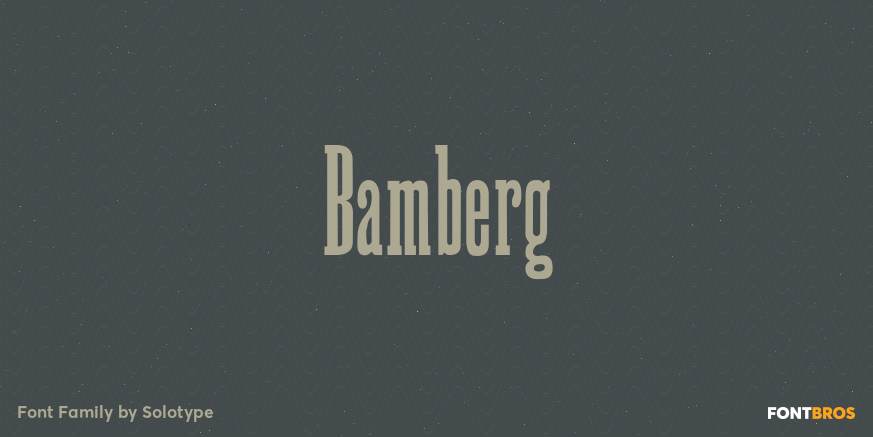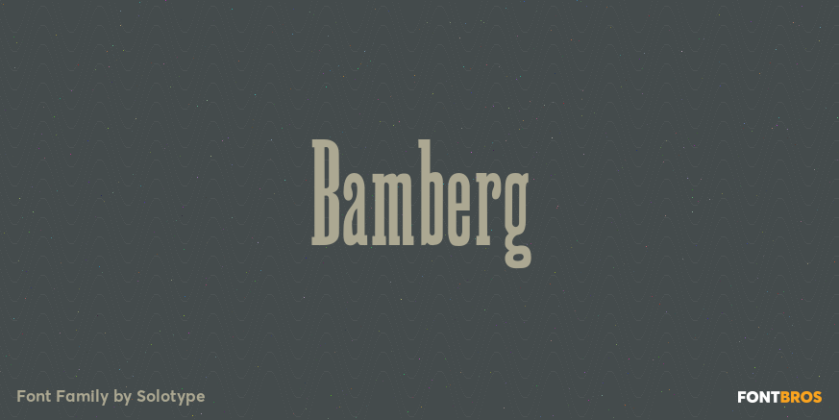
HomeFont BrosHistoricalBamberg HistoricalSerif Bamberg FacebookXPinterestWhatsApp 1 of 1 About Bamberg A compressed wood poster type from the mid-1800s. Certainly handy for excessive copy on a single line.  DOWNLOAD ON FONT BROSThis font is sold and delivered by Font Bros. Font Canyon may earn a commission if you buy through this link. People also explored Girlish Font Sideshow belinda script Carolyne Font TypeFace Font Snowflake Font Austhatic Script Font Weeknight Font Angelina Font 242 0 TagsBambergBamberg Font Previous articleAction Figure BBNext articlePulpo LEAVE A REPLY Cancel reply Comment: Please enter your comment! Name:* Please enter your name here Email:* You have entered an incorrect email address! Please enter your email address here Website: Save my name, email, and website in this browser for the next time I comment. Personal Use Free Happy Camping Personal Use Free Read more about this font New Amsterdam Personal Use Free Read more about this font Caramel Latte Personal Use Free Read more about this font Retro Poster Personal Use Free Read more about this font BLOG 5 Fonts That Will Dominate Design Trends in 2026 5 Fonts for 2026 That Will Dominate Design Trends Typography plays a critical role in visual communication, and as we look ahead to 2026, it’s... Top 10 Handwritten Fonts That Elevate Your Designs To increase your work productivity, choose the most readable fonts. How to Cut Any Font on Cricut: Convert a Font to SVG (Free)